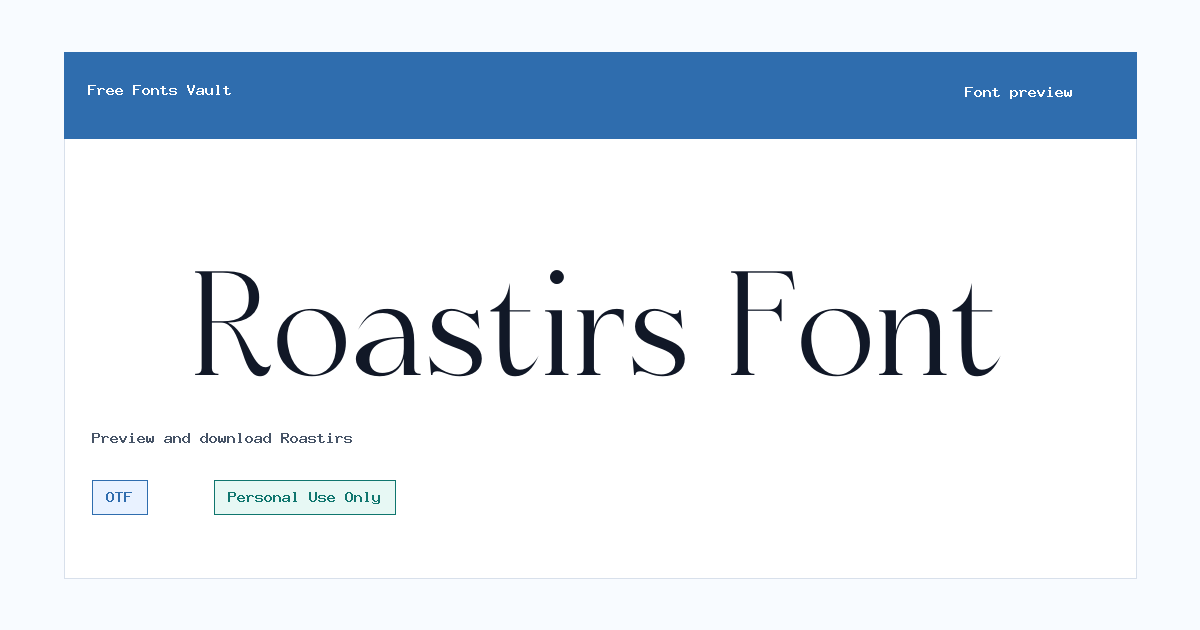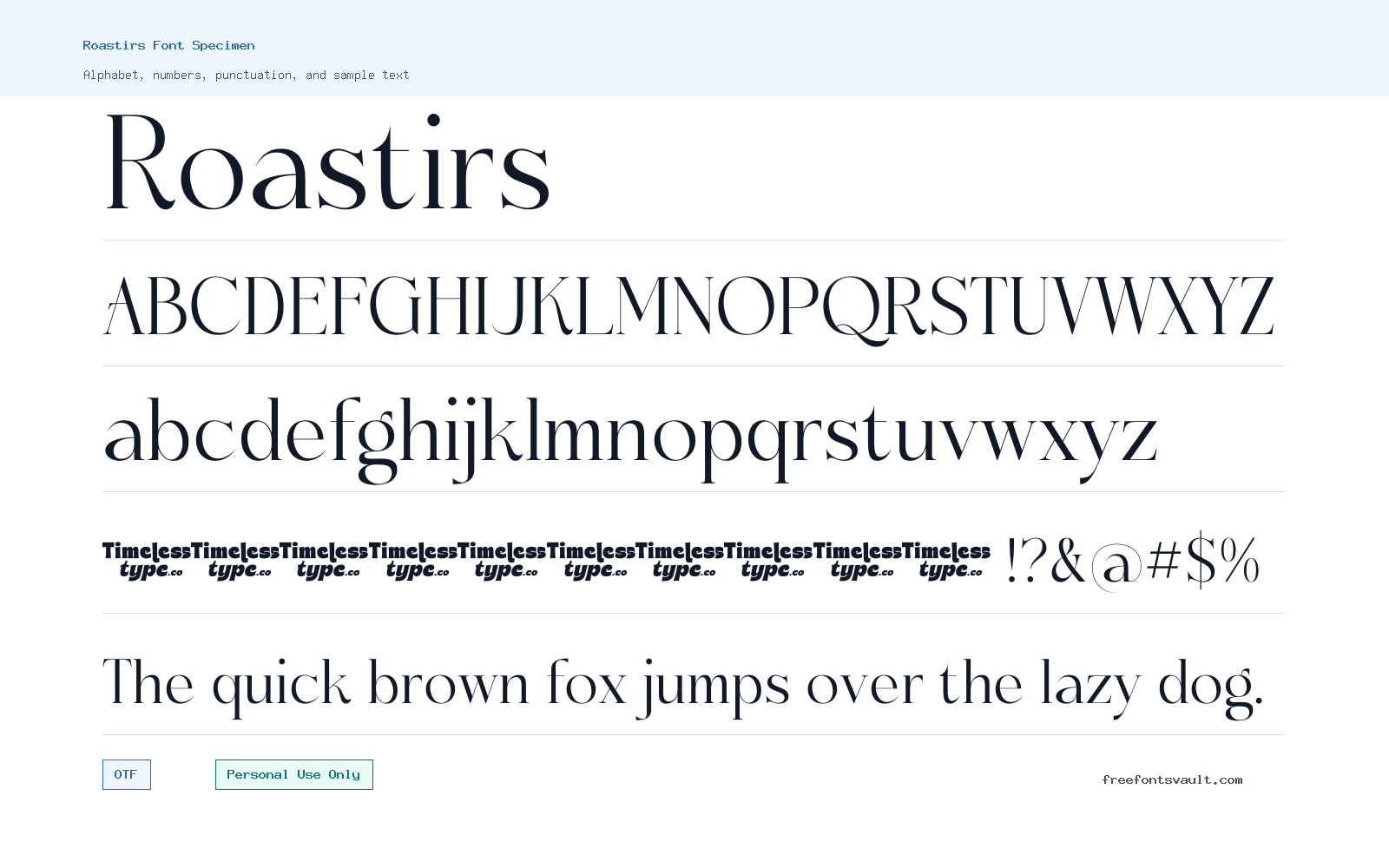
Roastirs
Roastirs font.
Roastirs is a serif font family with a Regular OTF style, made for visitors who want a polished display font to test in headlines, branding drafts, posters, and visual mockups.
About Roastirs Font
Roastirs works best when you treat it as a display serif rather than a body-text workhorse. Its serif category makes it a good candidate for layouts that need a more editorial or brand-focused feel, especially where the words are short enough for the letter shapes to stand out. Try it in the preview tool with names, logo concepts, invitation-style headings, short quotes, packaging mockups, and social graphics. Because the available style is Regular weight, it is most useful when the design depends on spacing, scale, and contrast instead of a large weight range.
For practical design work, start by previewing Roastirs at larger sizes. Serif display fonts often look their best in titles, mastheads, and short blocks, while smaller paragraphs can become harder to read depending on the design and spacing. Test uppercase and lowercase separately, then check numbers and punctuation if your project needs dates, prices, menus, captions, or product labels. If you are building a logo or brand mark, also test the font in black and white before adding color, effects, or texture. A strong type choice should still feel clear when the decoration is removed.
- Serif style that can support display-focused layouts such as titles, logo drafts, posters, and editorial graphics.
- Single-weight family setup, making it simple to test but less flexible than a full multi-weight type system.
- Useful for short, high-impact text where spacing and scale can be adjusted carefully.
- Logo concepts and brand presentation drafts
- Editorial-style headings
- Packaging mockups and label concepts
- Invitation or stationery previews
- Social media quote graphics
- Website hero text mockups
- Short display text in design experiments
Roastirs is credited to Heru Utama Putra and TimelessType. The listed designer link points to TimelessType.co.
Use Roastirs where the type can be shown at a comfortable size. For posters, logos, and web hero sections, give the letters enough space and avoid crowding the line. Pair it with a plain sans serif for supporting text, navigation, product details, or long descriptions. A simple sans serif pairing helps the display serif stay prominent without making the whole design feel too decorative. If you use it in web mockups, test loading, spacing, and fallback fonts before handing the design to a developer.
Who designed Roastirs?
Roastirs is credited to Heru Utama Putra, with TimelessType listed as the foundry.
What is Roastirs best used for?
It is best tested in short display settings such as logo drafts, poster titles, packaging mockups, invitations, headings, and social graphics.
Is Roastirs good for long paragraphs?
It is better to test Roastirs as a display font first. For long reading text, pair it with a simpler font and use Roastirs for headings or accents.
How should I pair Roastirs with another font?
Pair it with a clean sans serif for body copy, captions, menus, or interface text. Keep the supporting font simple so Roastirs can carry the visual style.